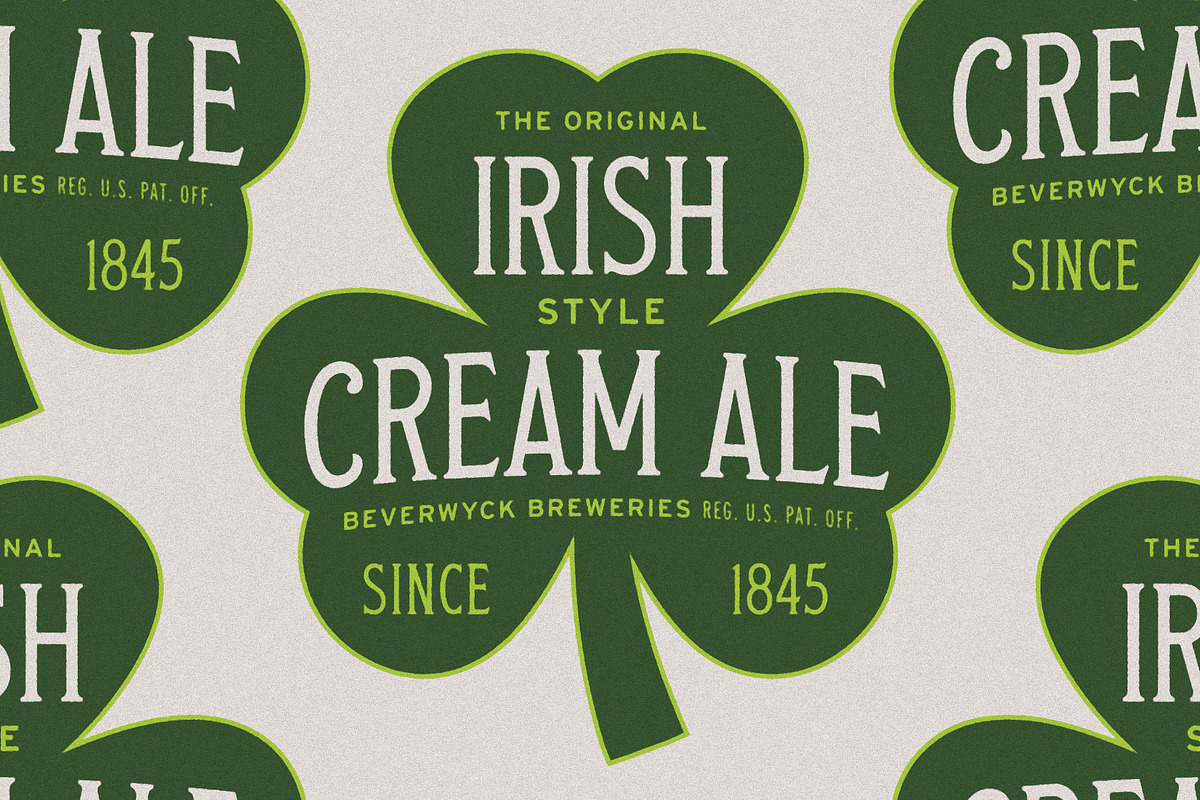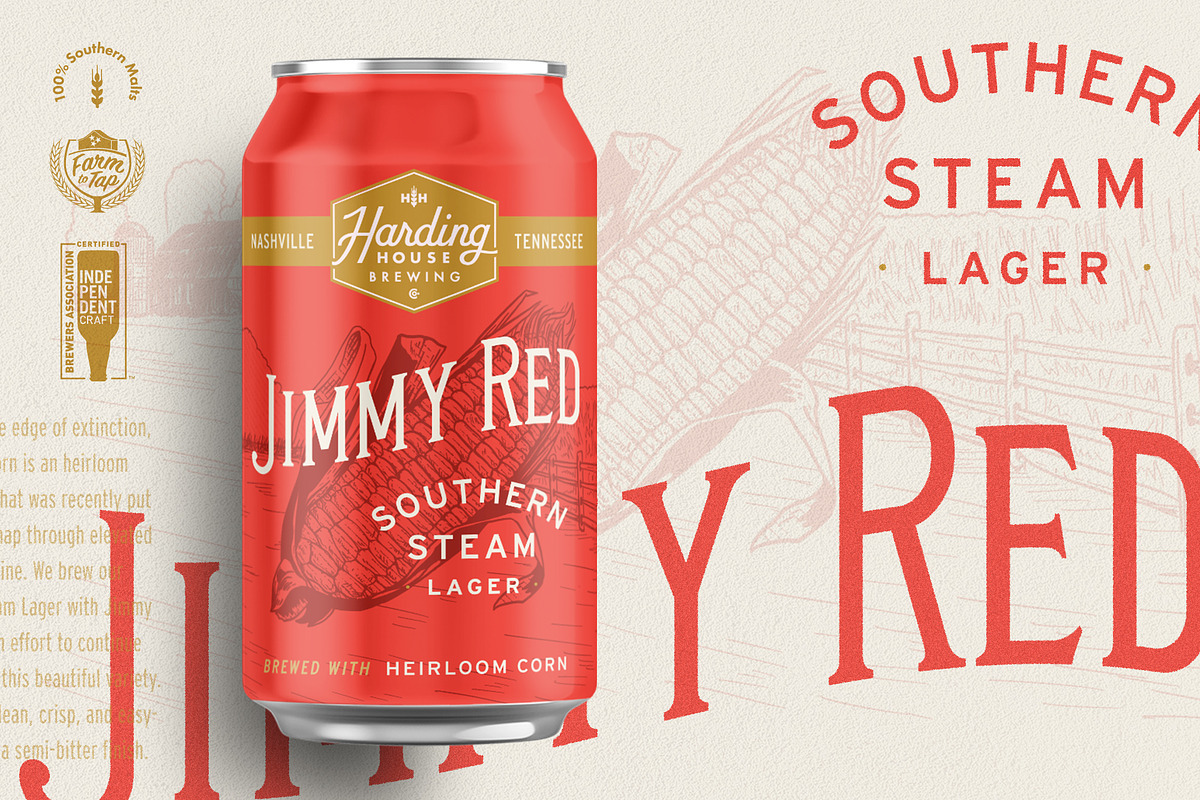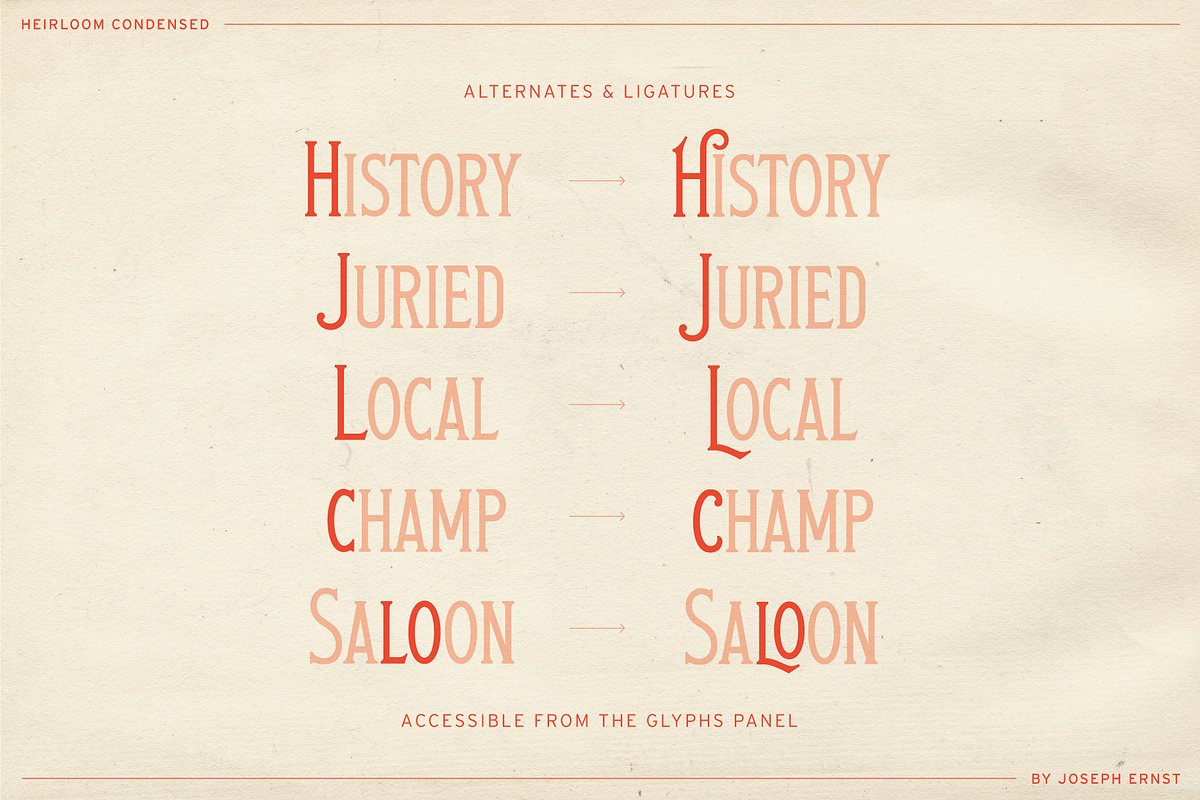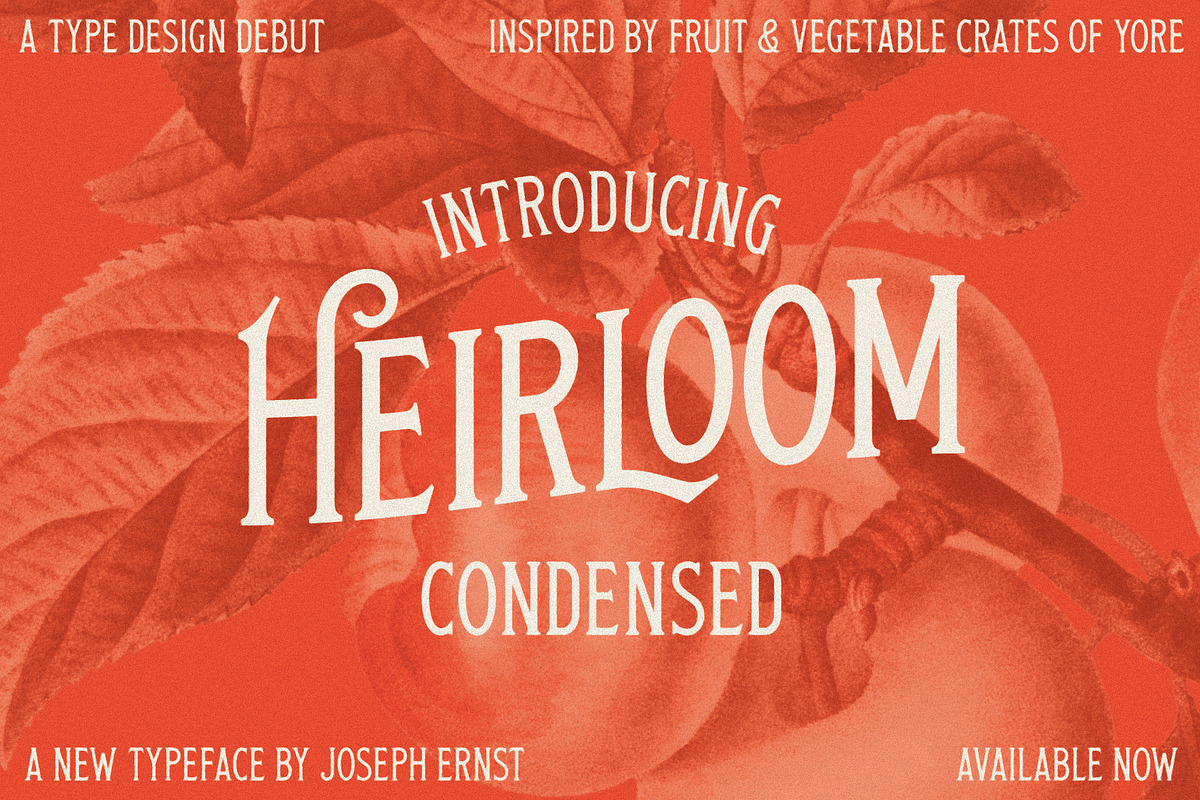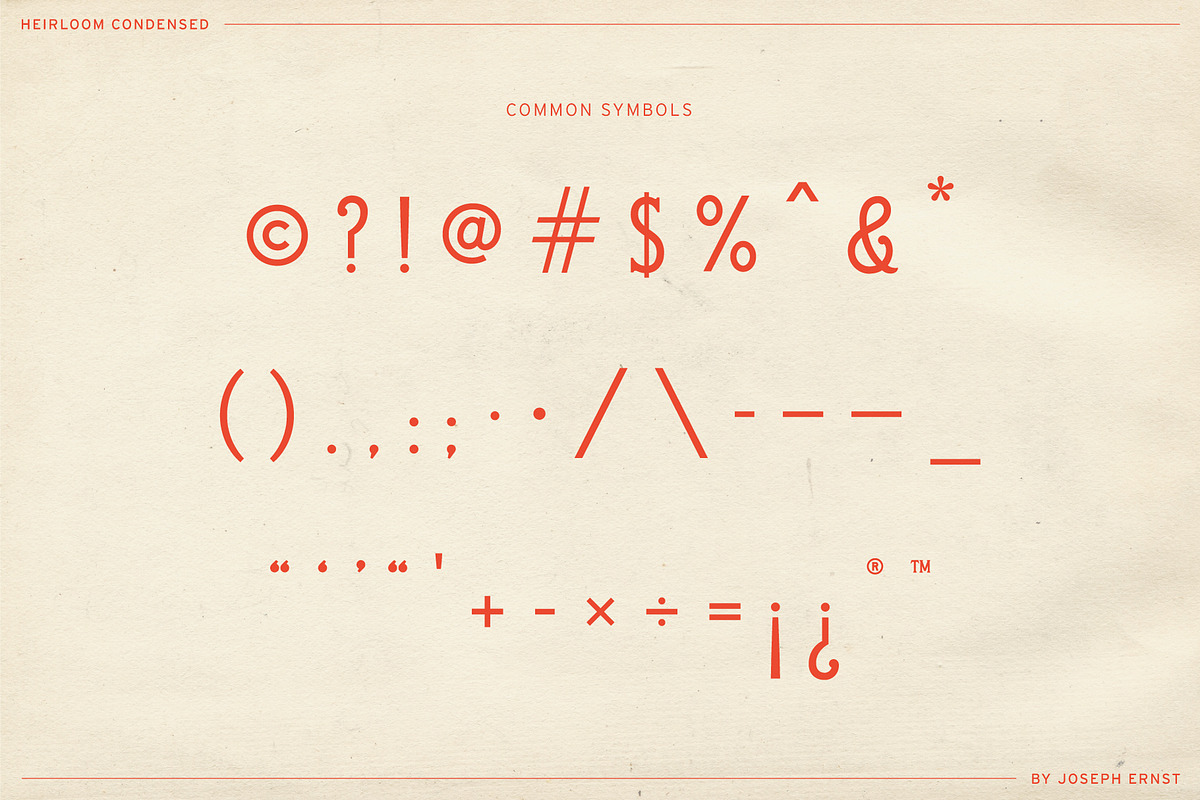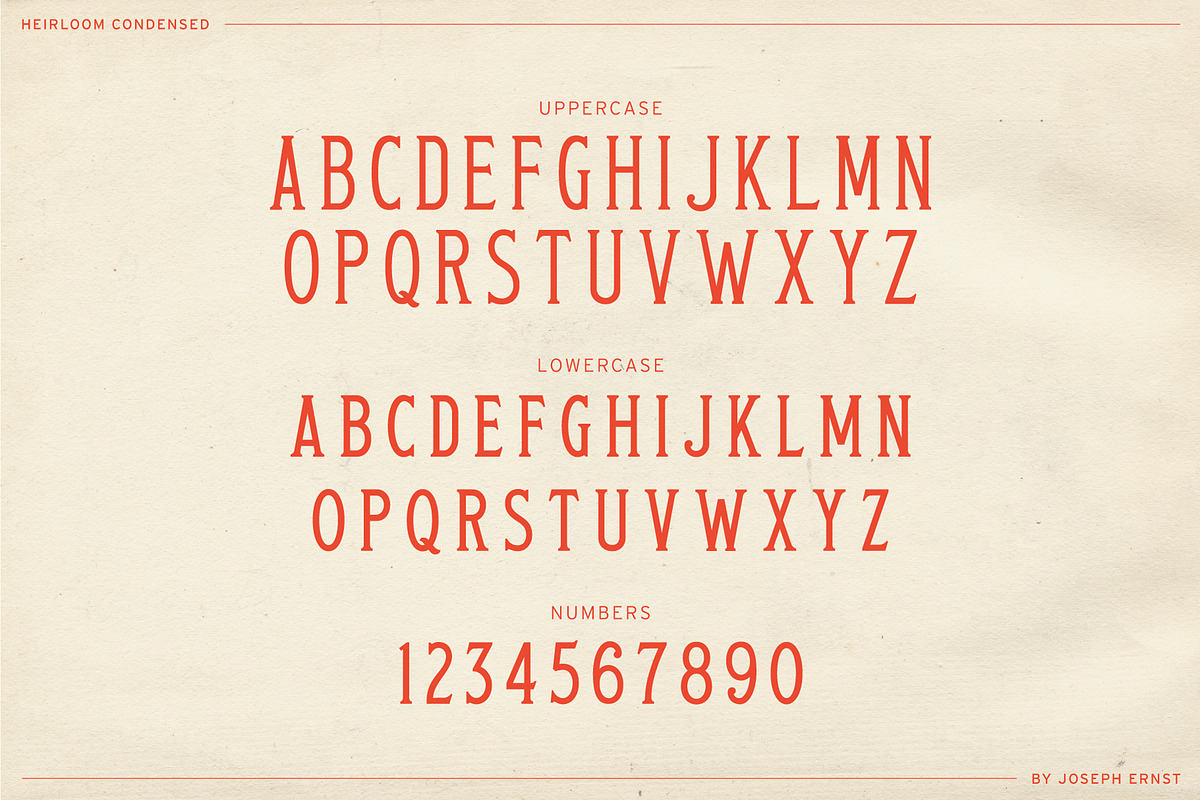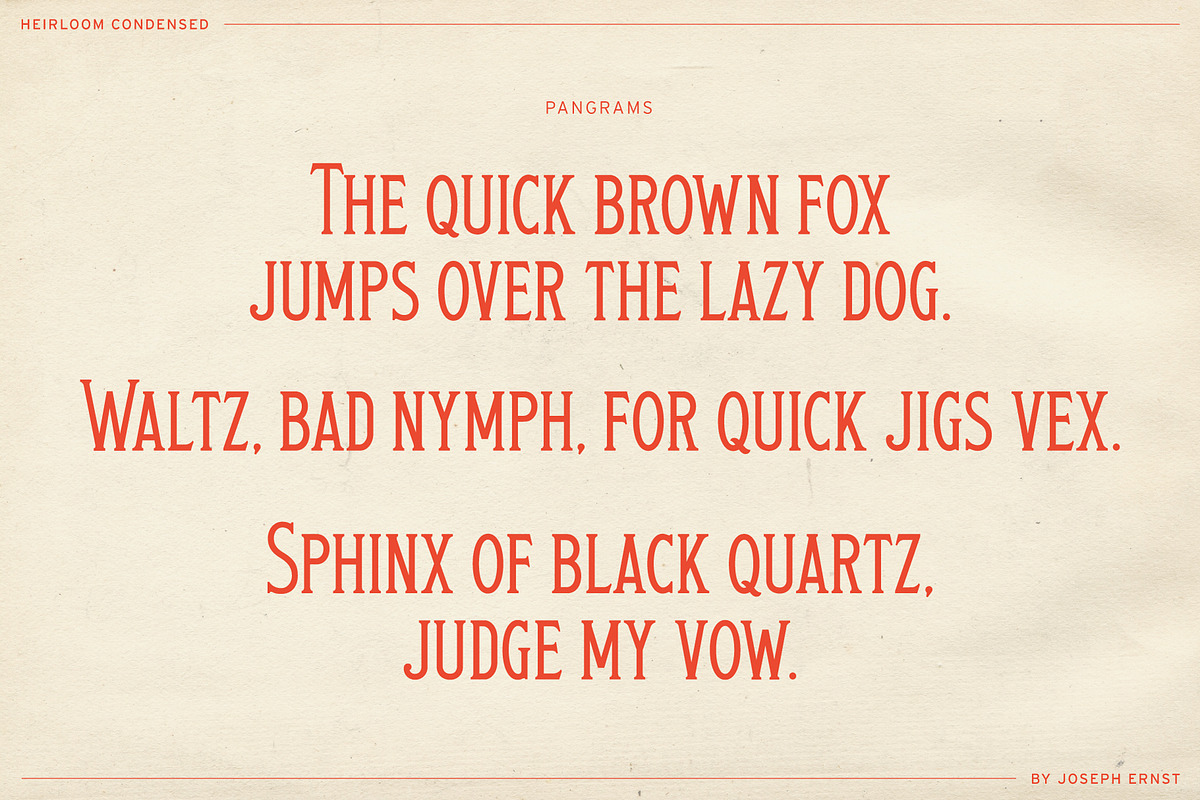
Heirloom Condensed
Heirloom Condensed is a typeface inspired by vintage fruit crate labels, turn-of-the-century seed packets, and heritage ephemera. Uppercase, small capitals, numerals, common symbols & accents, and select alternate glyphs are included. Perfect for vintage-inspired designs with a sense of history and quirk, this font lends itself well to logo and branding work, and marries well with texture and grit for a worn-in look.